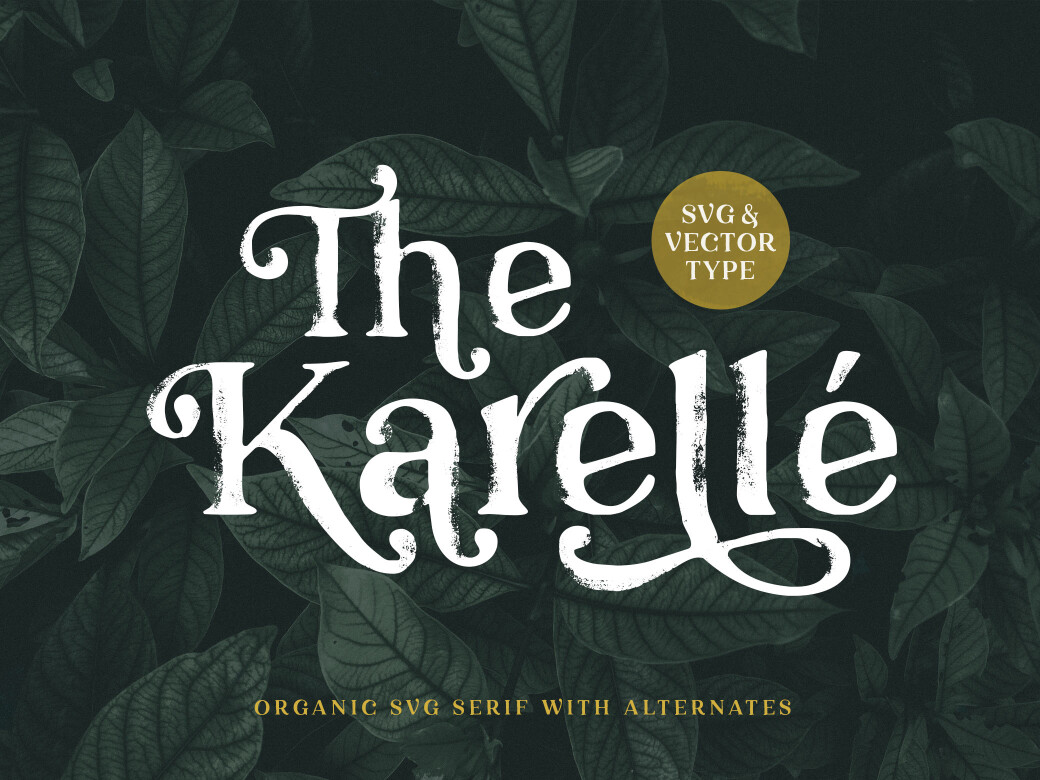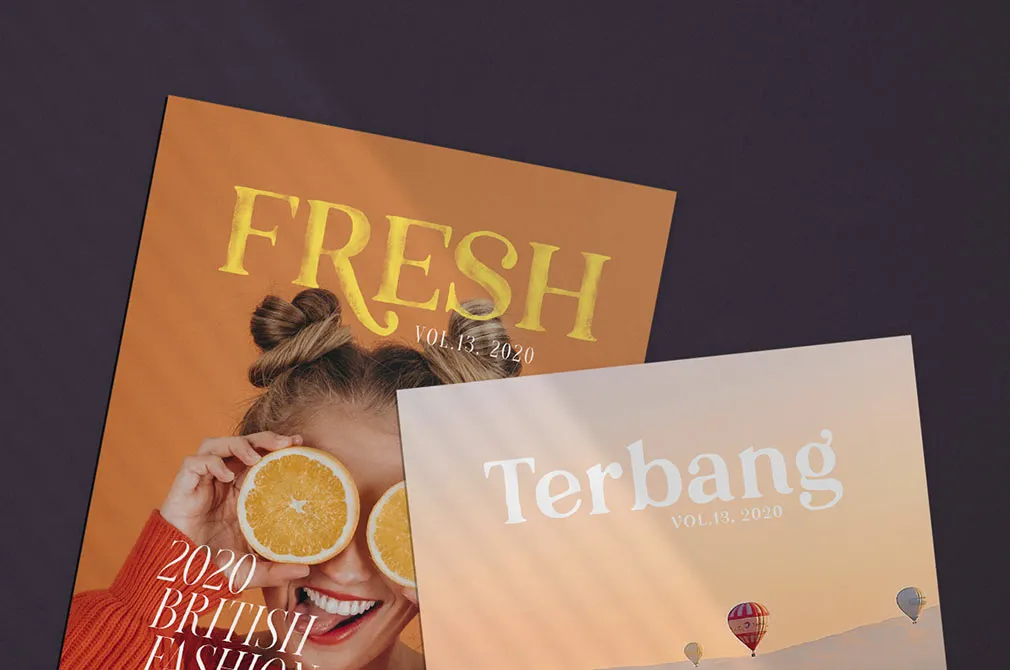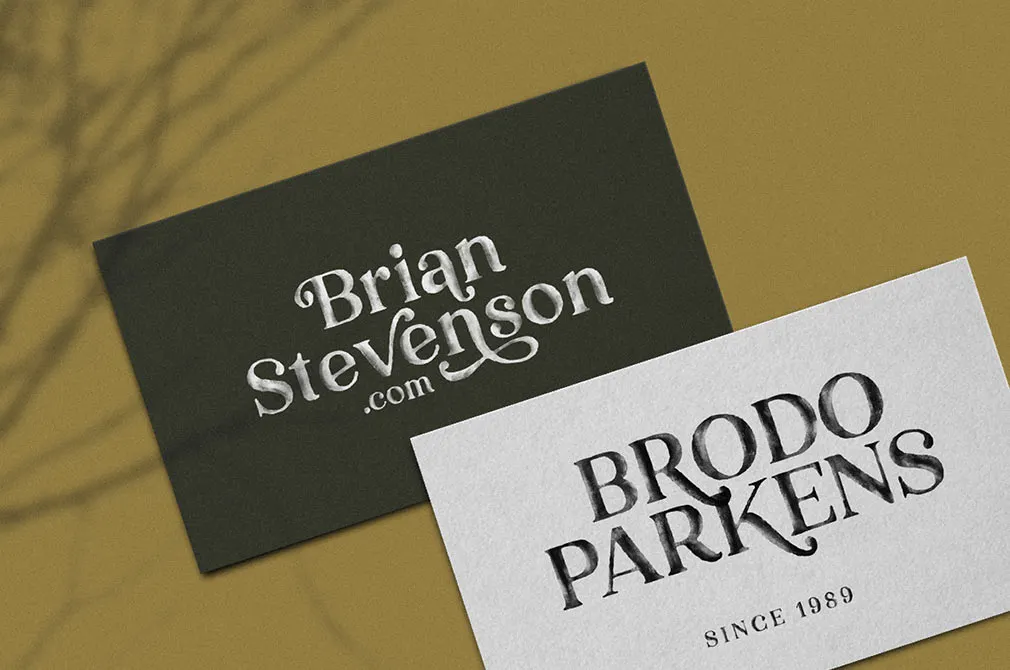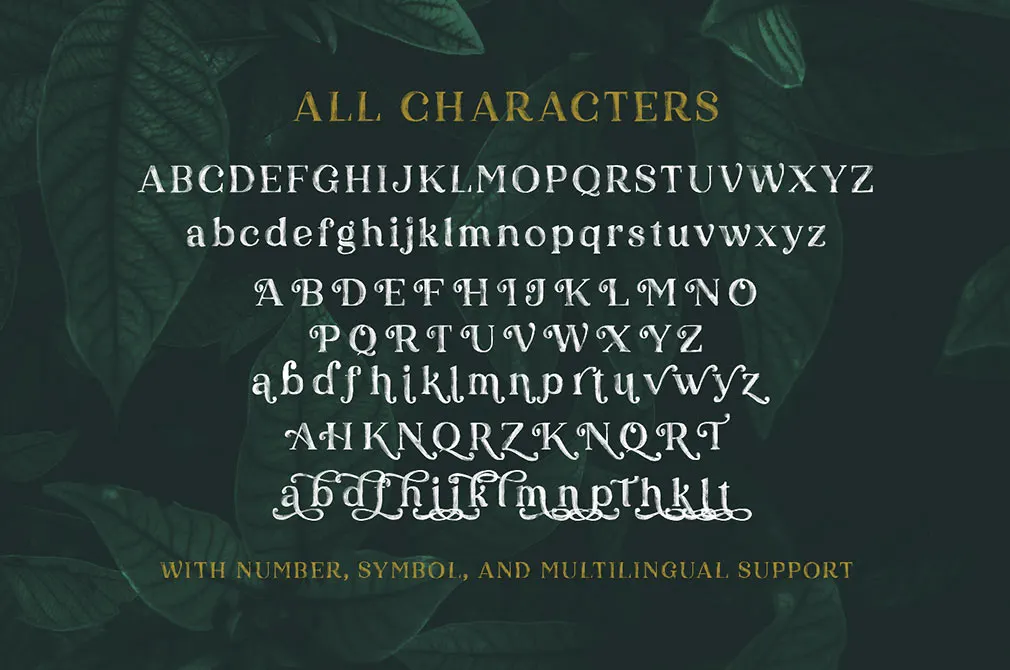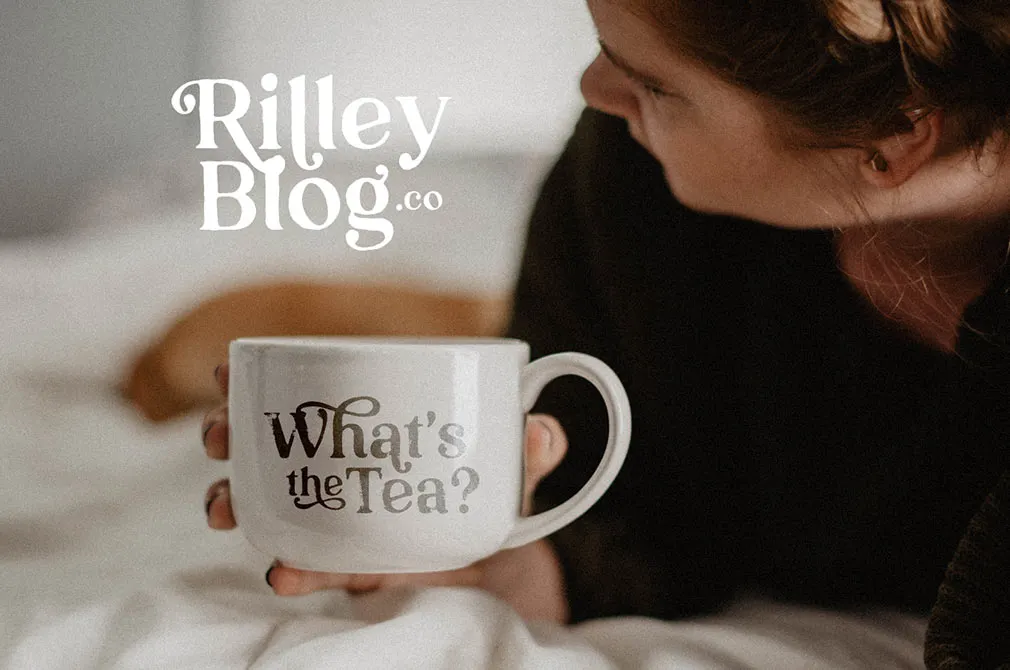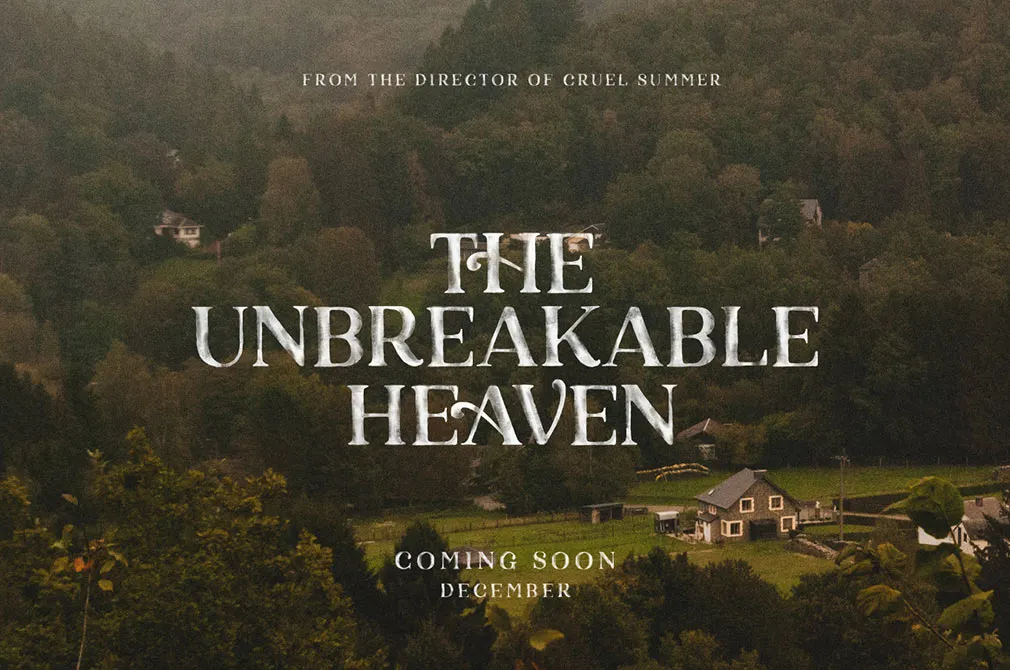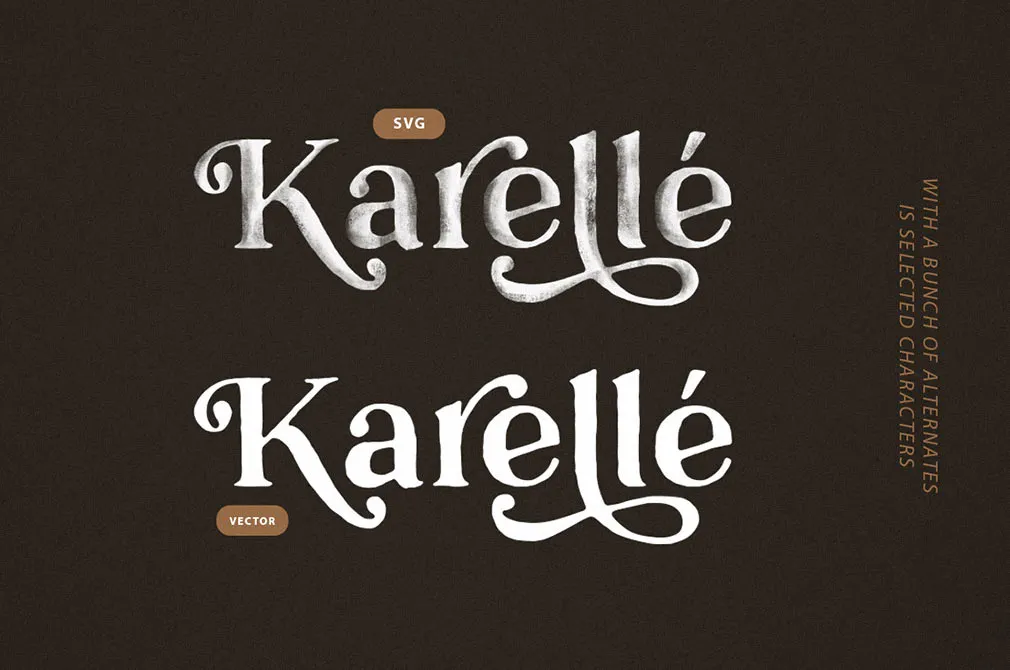
Karelle Serif Font
The typeface that came alive and shared its freshness with the world! Present you the majestic serif font, meant to give you chills of playfulness and an aesthetic overdose!
Karelle is literally packed with natural feels! It comes with two font formats: SVG and a regular OTF. This unique font also includes a bunch of alternates, numbers, symbols, and punctuation marks, so you're not limited in sources for self-expression. Supports many languages and is already PUA encoded. Let this font make your projects, branding or advertisement even more raw and natural!